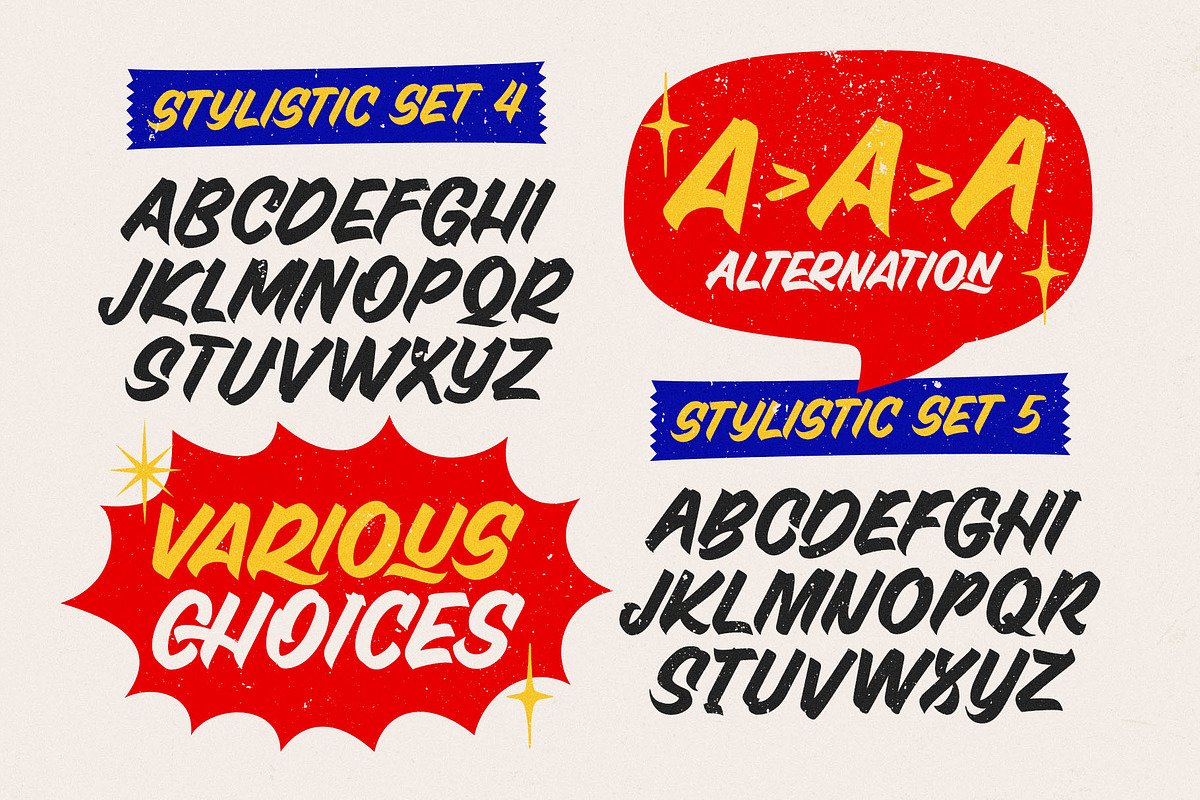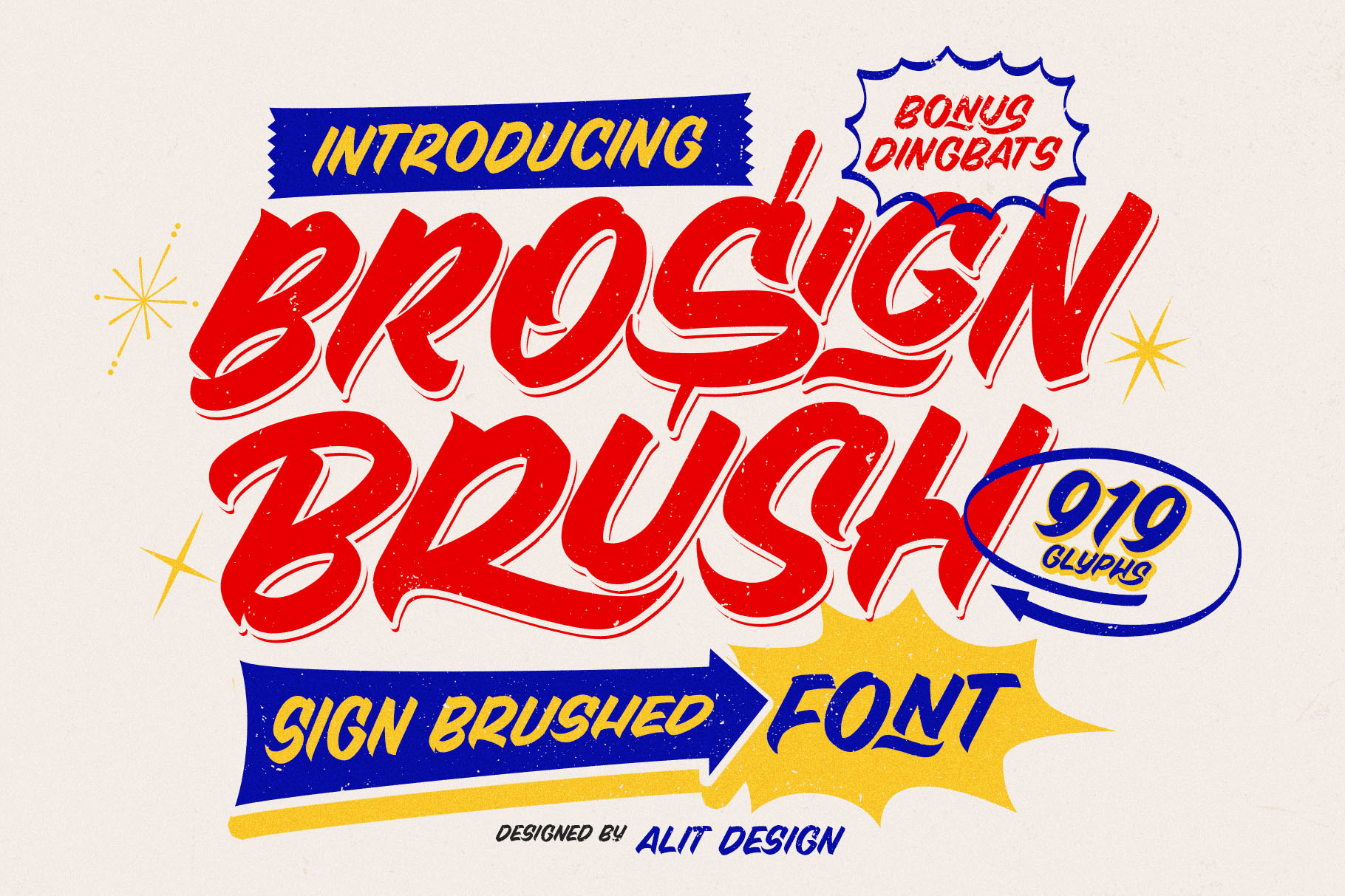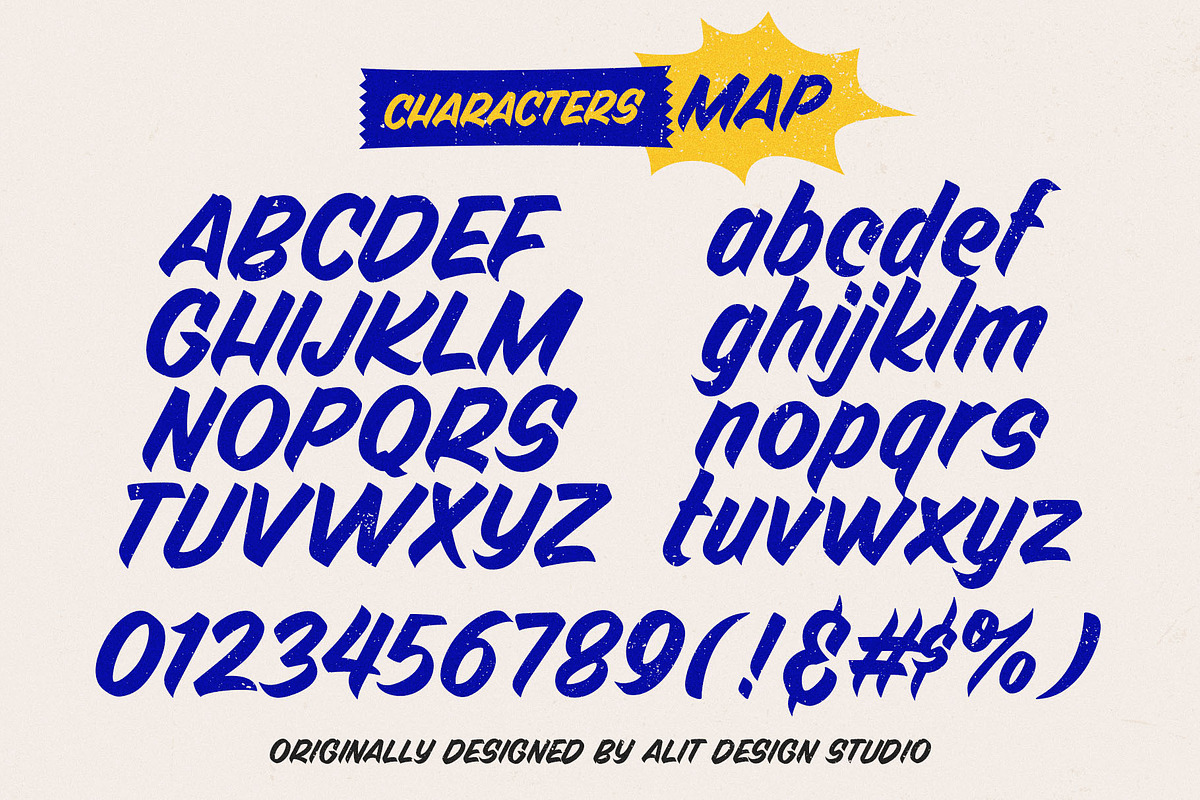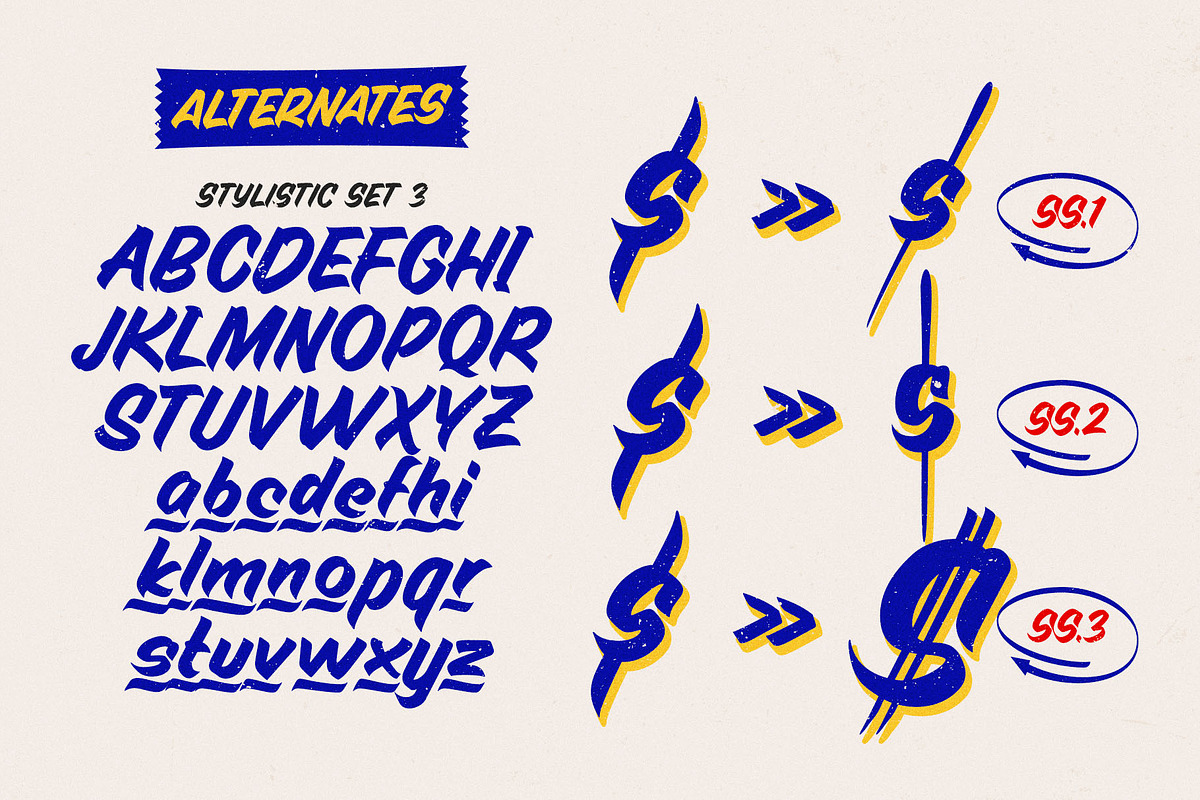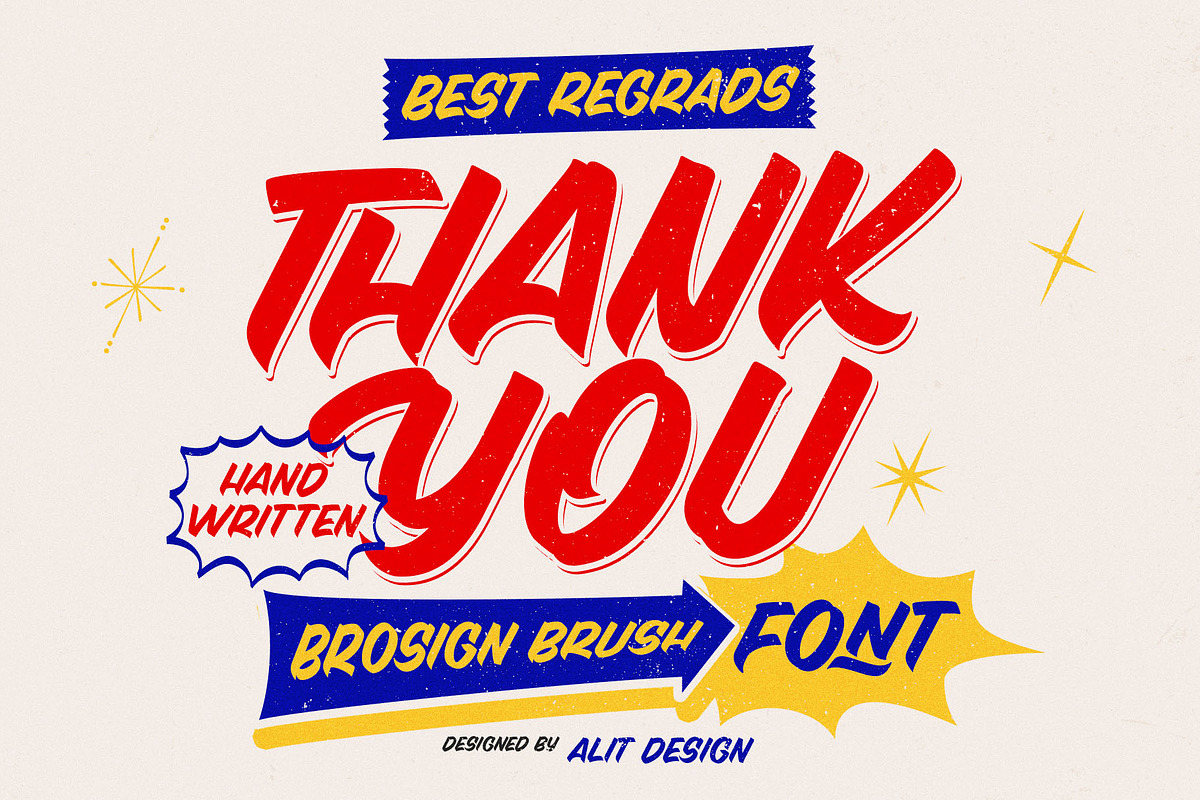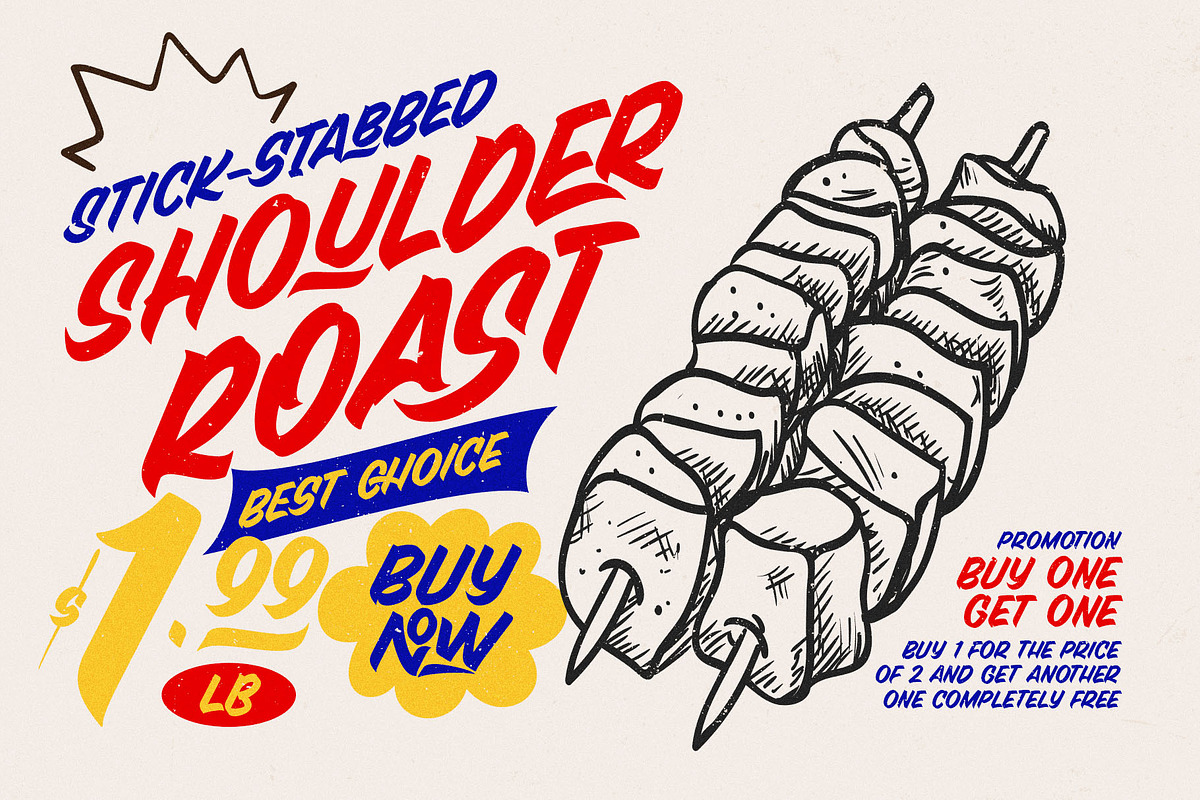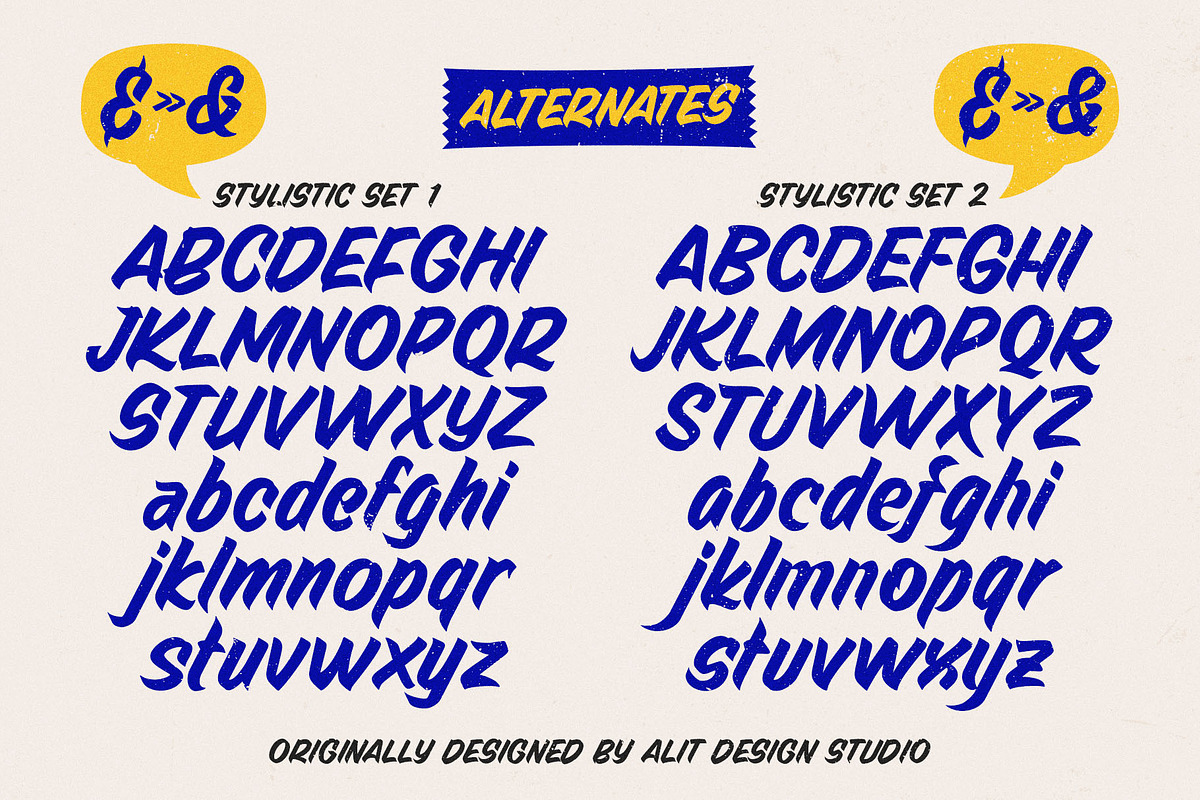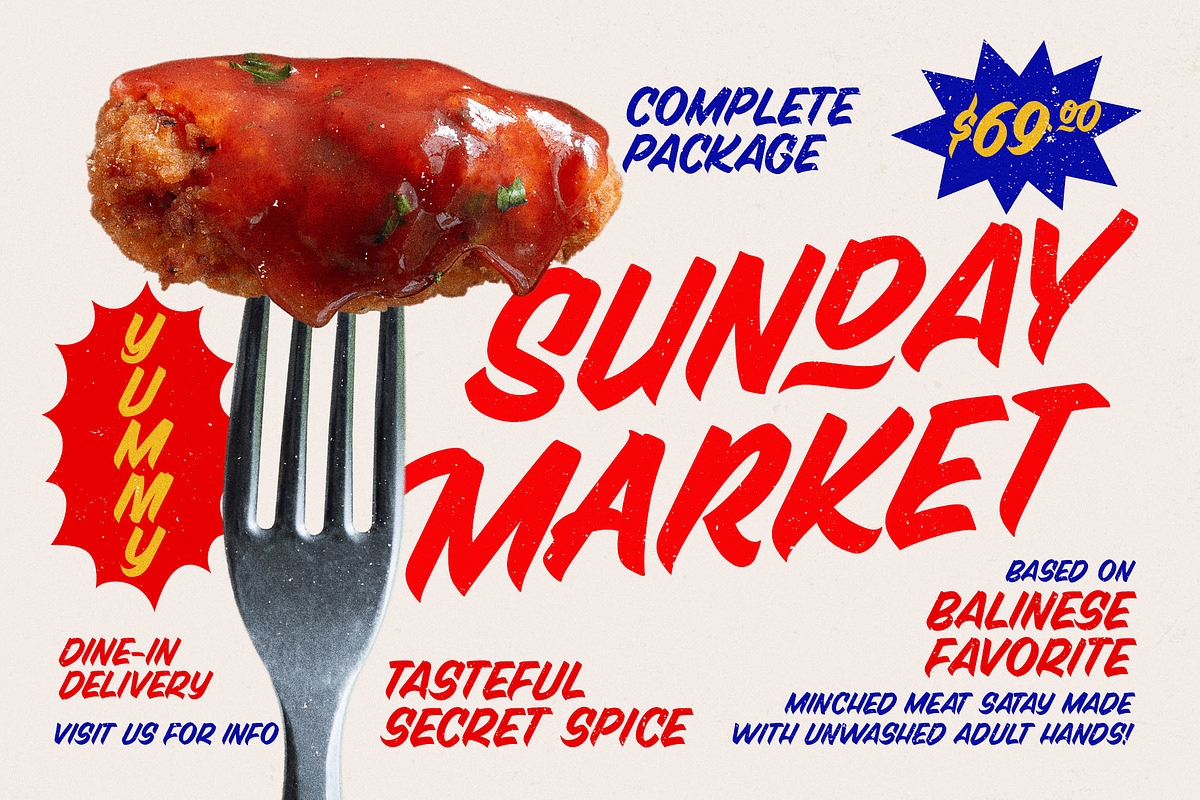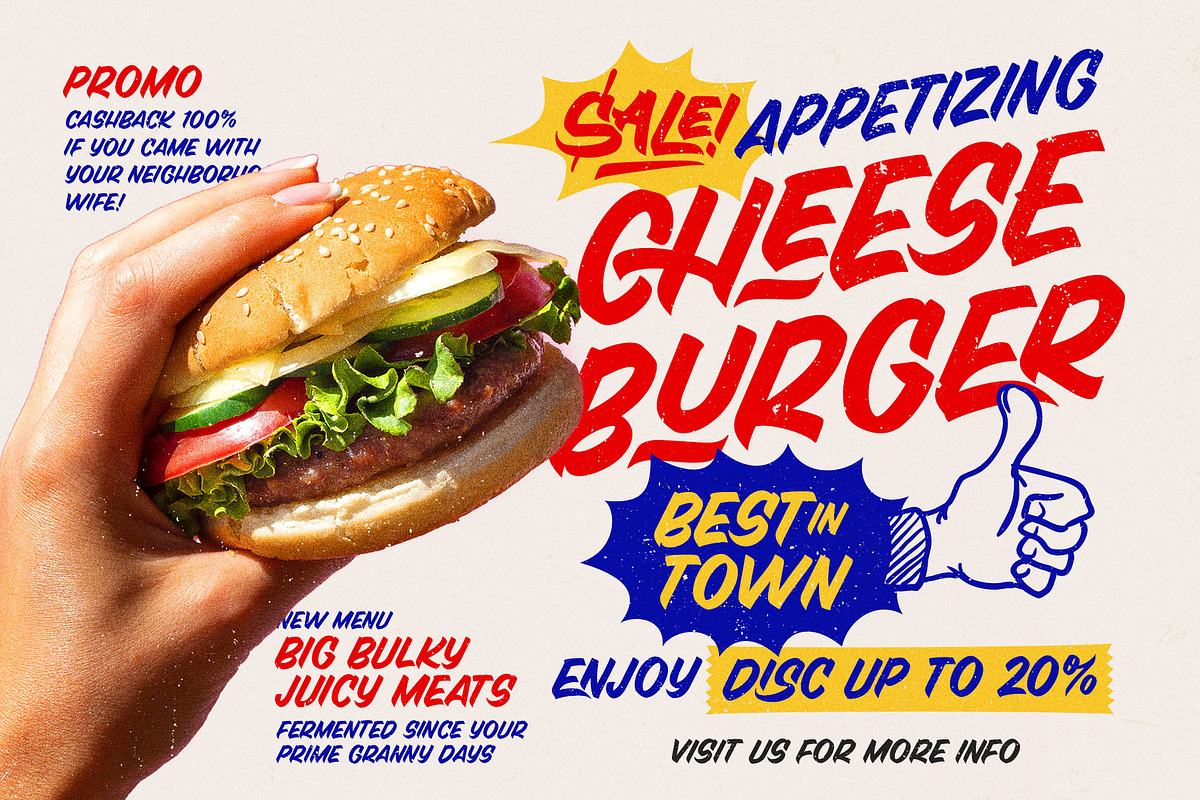
Brosign Brush Typeface
Introducing BroSign Brush Typeface, a meticulously crafted vintage font inspired by the fluid, artistic strokes of traditional sign painting. Designed to evoke the classic charm of hand-lettered signs, this typeface brings the spontaneity and dynamism of brush strokes to your digital toolbox, offering a smooth and authentic feel that’s perfect for a wide range of creative projects.
Features in Detail:
Extensive Character Set with 919 Glyphs: This font boasts an impressive collection of 919 characters, ensuring you have every letterform and symbol you could possibly need. Whether you're crafting headlines, logos, or body text, the vast range of characters gives you the flexibility to create stunning, well-balanced typography.
Multiple Alternative Characters: With numerous alternative character options, you can personalize your typography to suit your specific design vision. Each letter comes with several stylistic variations, allowing for a customized, handcrafted look that feels true to vintage sign-making. Experiment with different styles to match your project's mood—whether playful, elegant, or bold.
Handcrafted Ligatures: To further enhance the natural flow of your text, BroSign Brush Typeface includes a variety of ligatures that seamlessly connect characters. These thoughtful combinations mimic the effortless transitions of a paintbrush stroke, giving your typography a smooth, cohesive appearance.
Multilingual Support: The BroSign Brush Typeface offers comprehensive multilingual support, including accented characters for a wide range of languages. This makes it ideal for global brands, websites, and creative projects that need to communicate across borders without sacrificing style.
Dingbats for Creative Embellishment: As a bonus, the font also comes with a set of dingbat characters, perfect for adding extra flair to your designs. These decorative elements, inspired by vintage signage and graphic sign, can be used to frame text, accent designs, or serve as standalone illustrations to enhance your project.
- Vintage-Inspired Logos: Achieve that retro, handcrafted look reminiscent of old-school signage.
- Branding & Packaging: Add a dynamic, artistic touch to product packaging and branding materials.
- Signage & Posters: Ideal for both large-scale signs and posters that require a bold, eye-catching font.
- Editorial Design: From magazine headlines to book covers, this font brings elegance and personality.
- Web & Social Media Graphics: Stand out online with typography that mimics the beauty of hand-painted brushwork.
With BroSign Brush Typeface, you're not just choosing a font; you're embracing a rich visual tradition. Each letter is carefully designed to flow with the grace and spontaneity of a real brushstroke, making your text feel alive and authentic. Whether you're evoking nostalgia or creating something entirely fresh, this typeface offers the versatility and artistry to bring your vision to life.
Add a touch of handcrafted beauty to your next project with BroSign Brush Typeface—where vintage meets modern creativity.